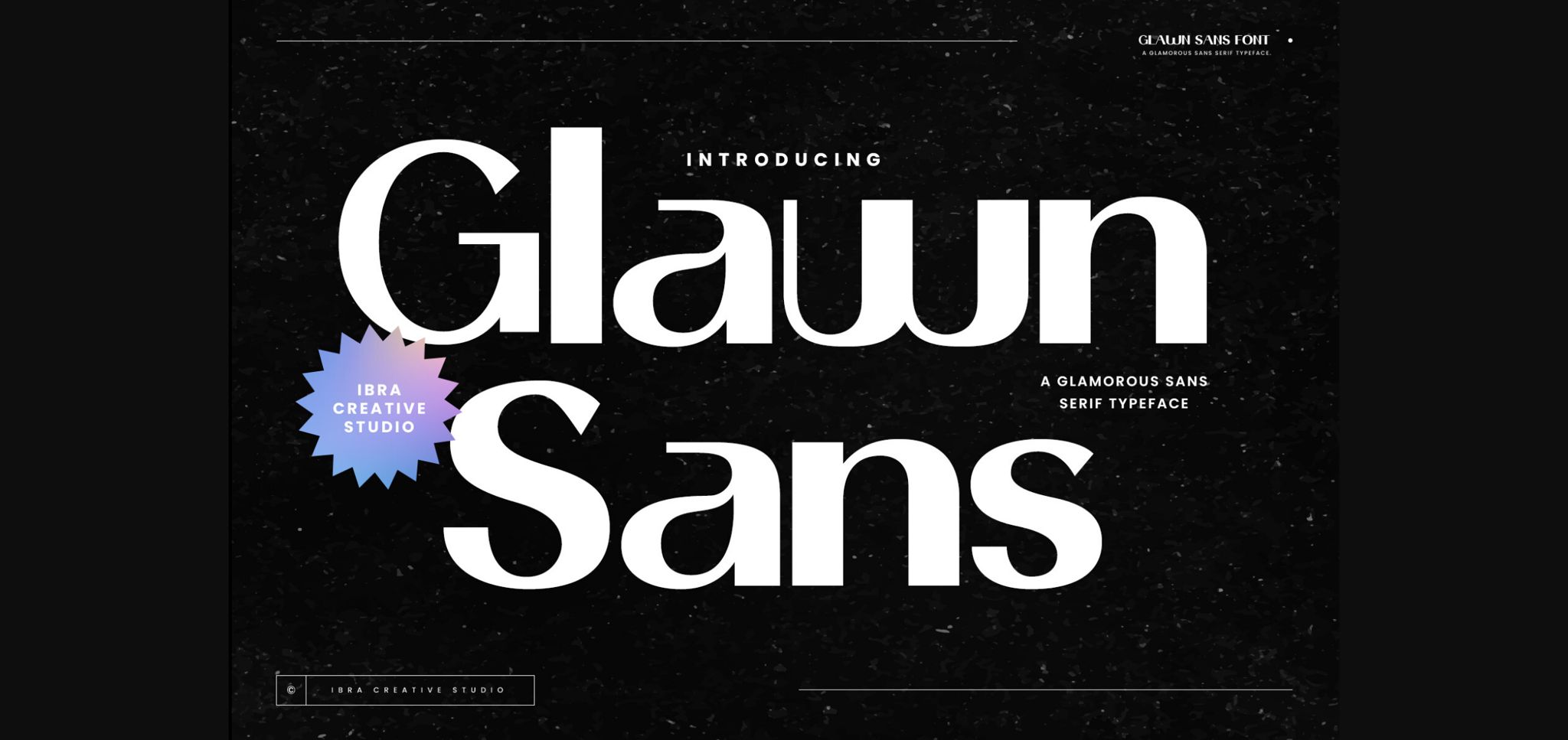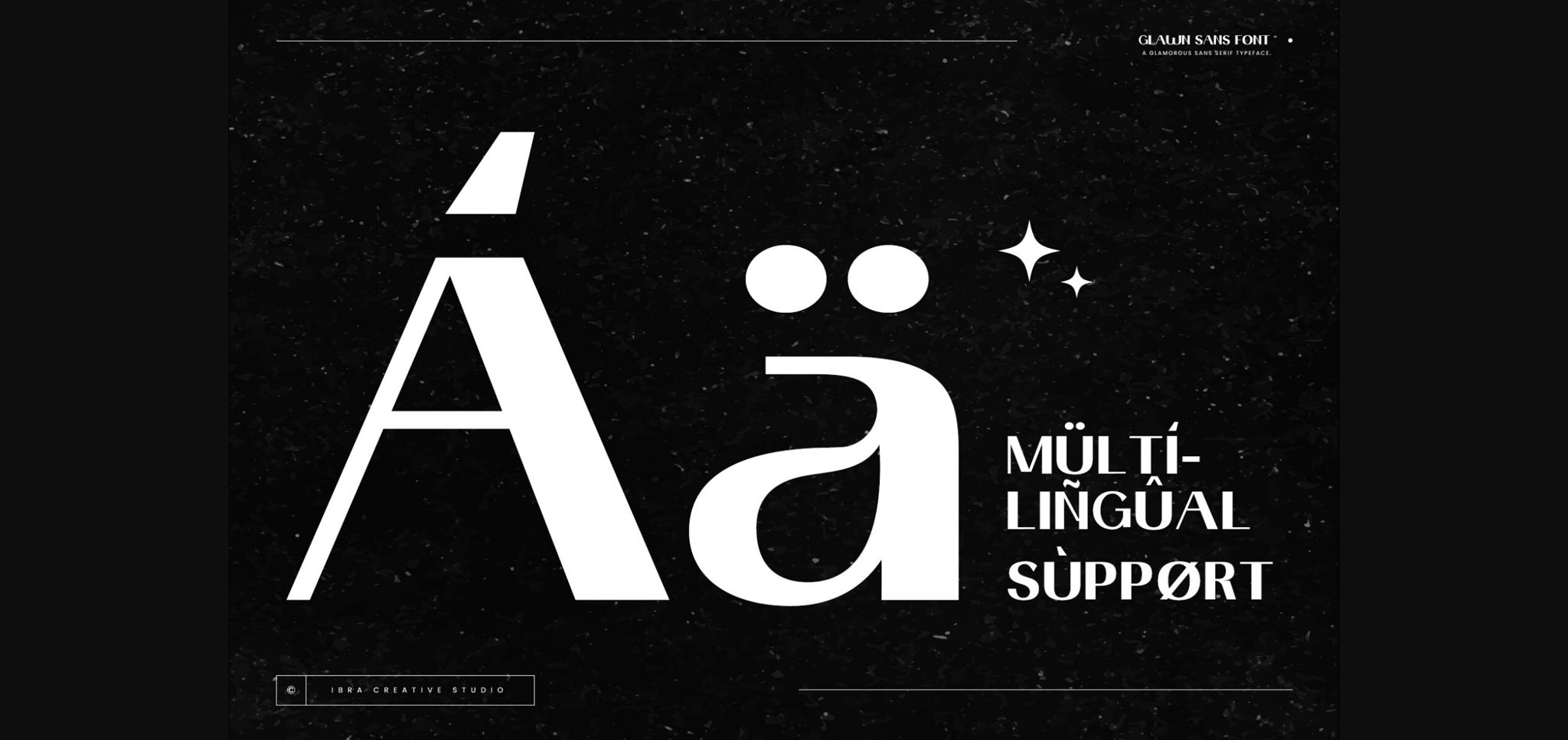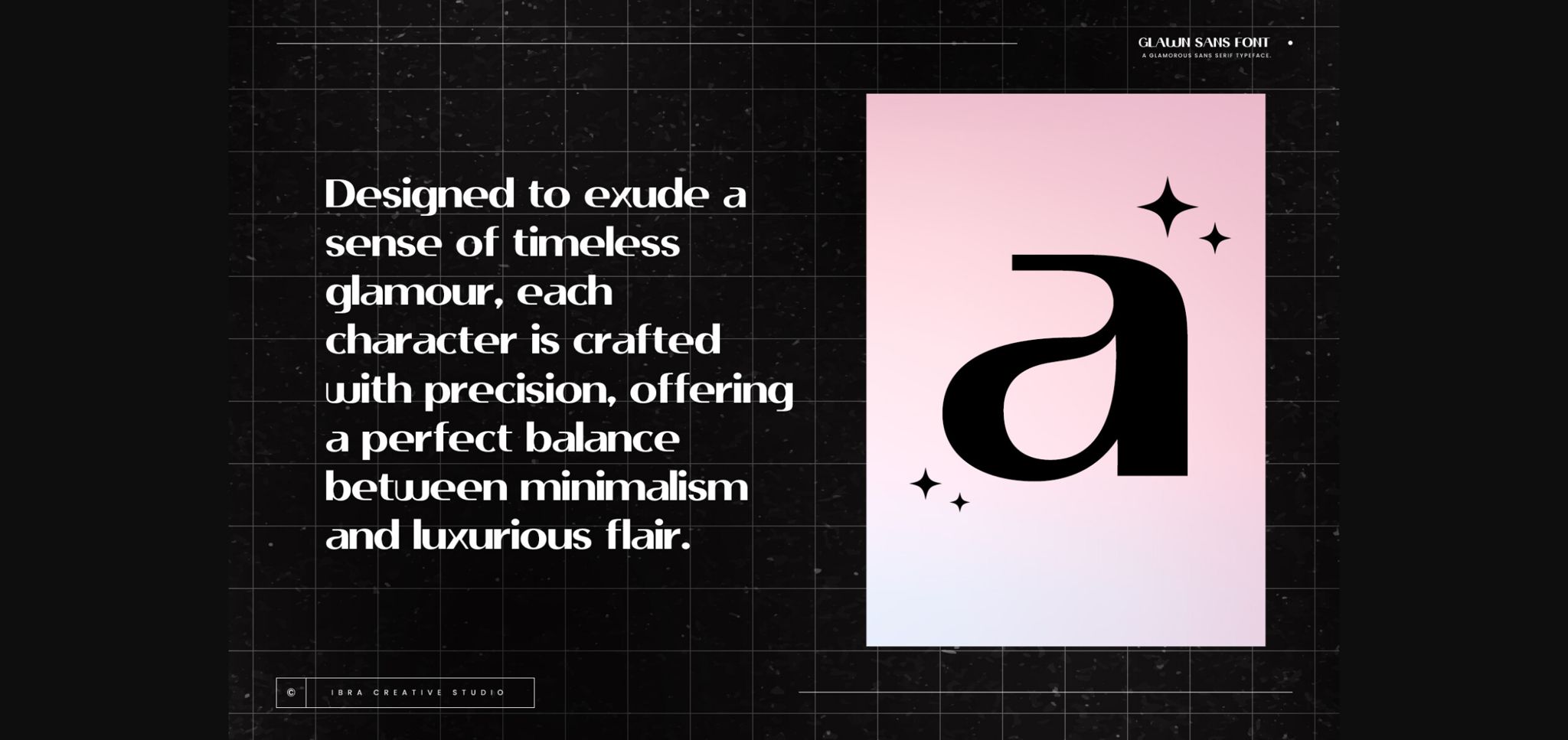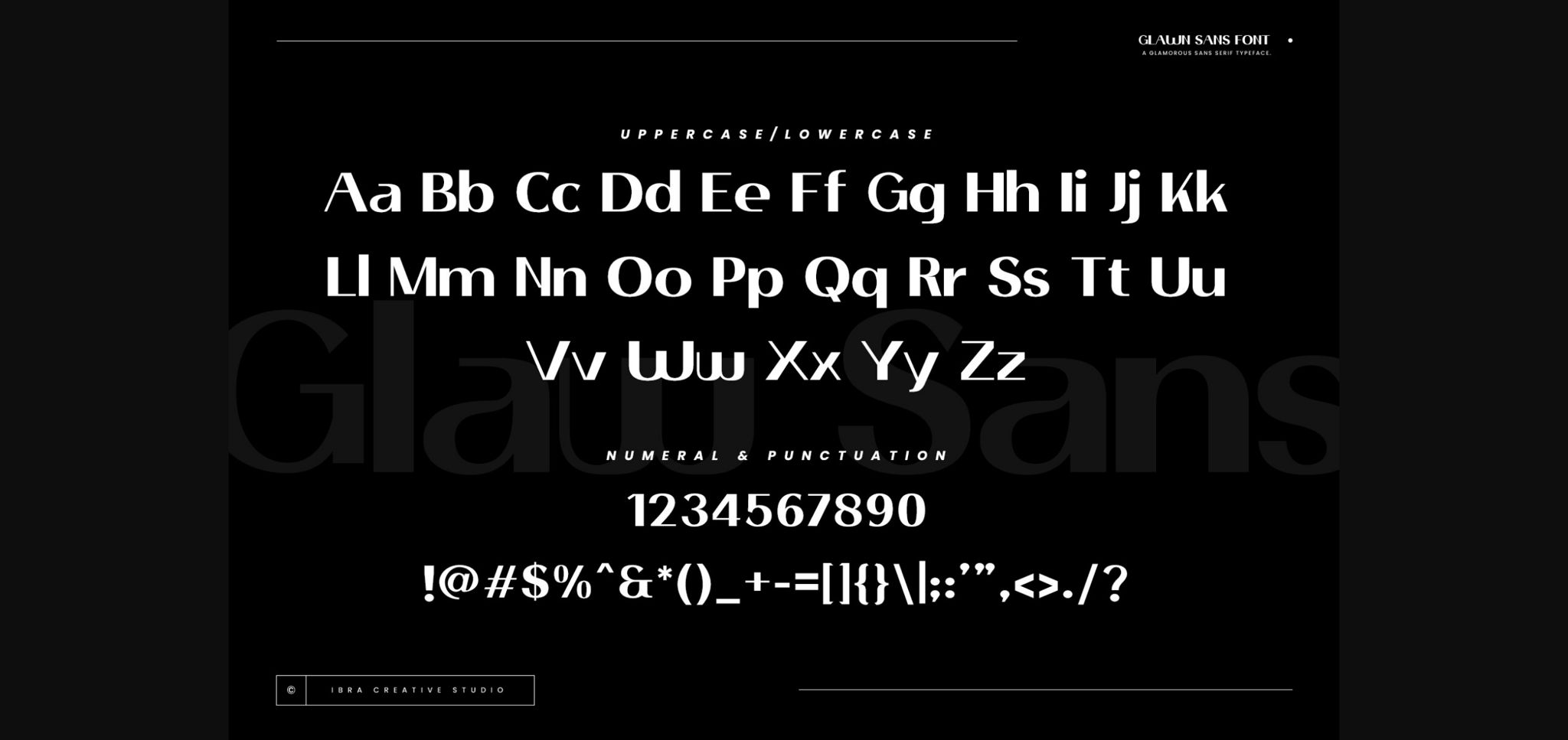
About Glawn Sans Font
Glawn Sans, a glamorous sans-serif typeface, epitomizes sophistication and modern elegance with its sleek lines and refined details. Designed to exude a sense of timeless glamour, each character is crafted with precision, offering a perfect balance between minimalism and luxurious flair. The clean and chic aesthetics of Glawn Sans make it a versatile choice for a myriad of design applications, from high-end branding to editorial layouts.